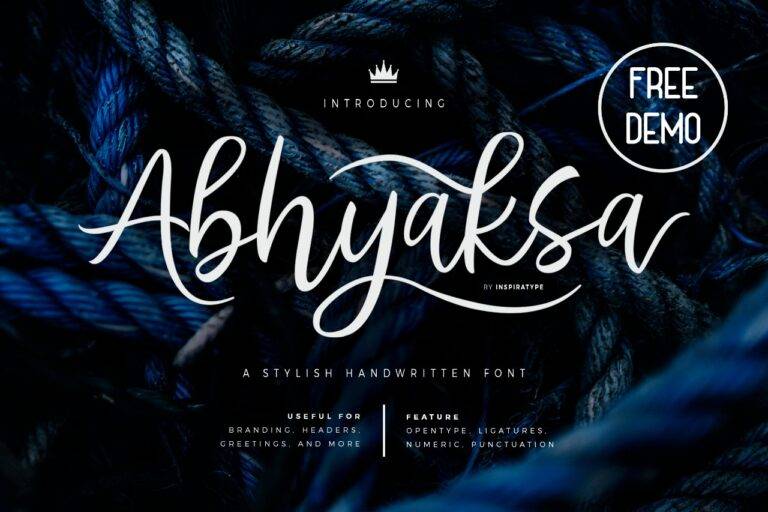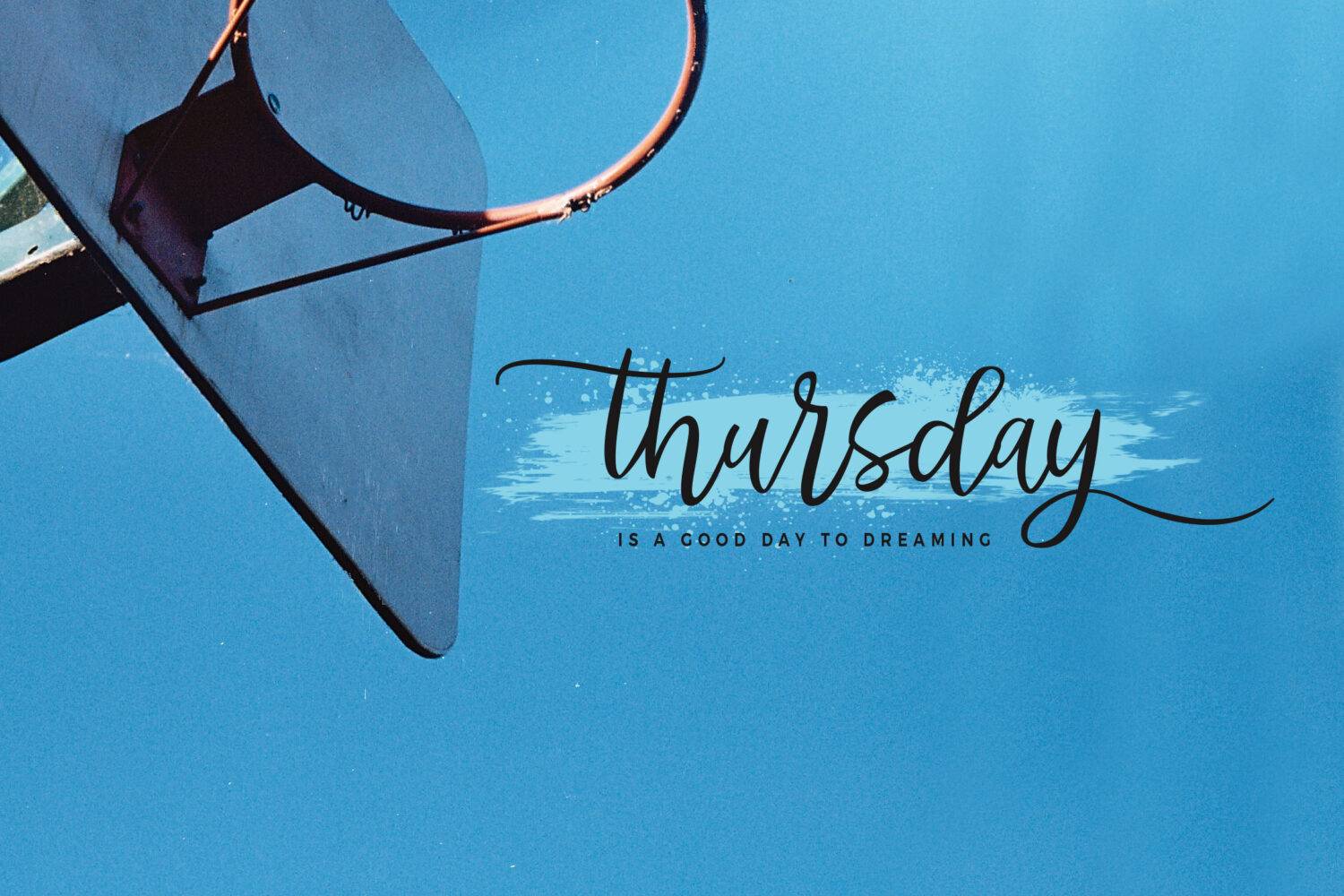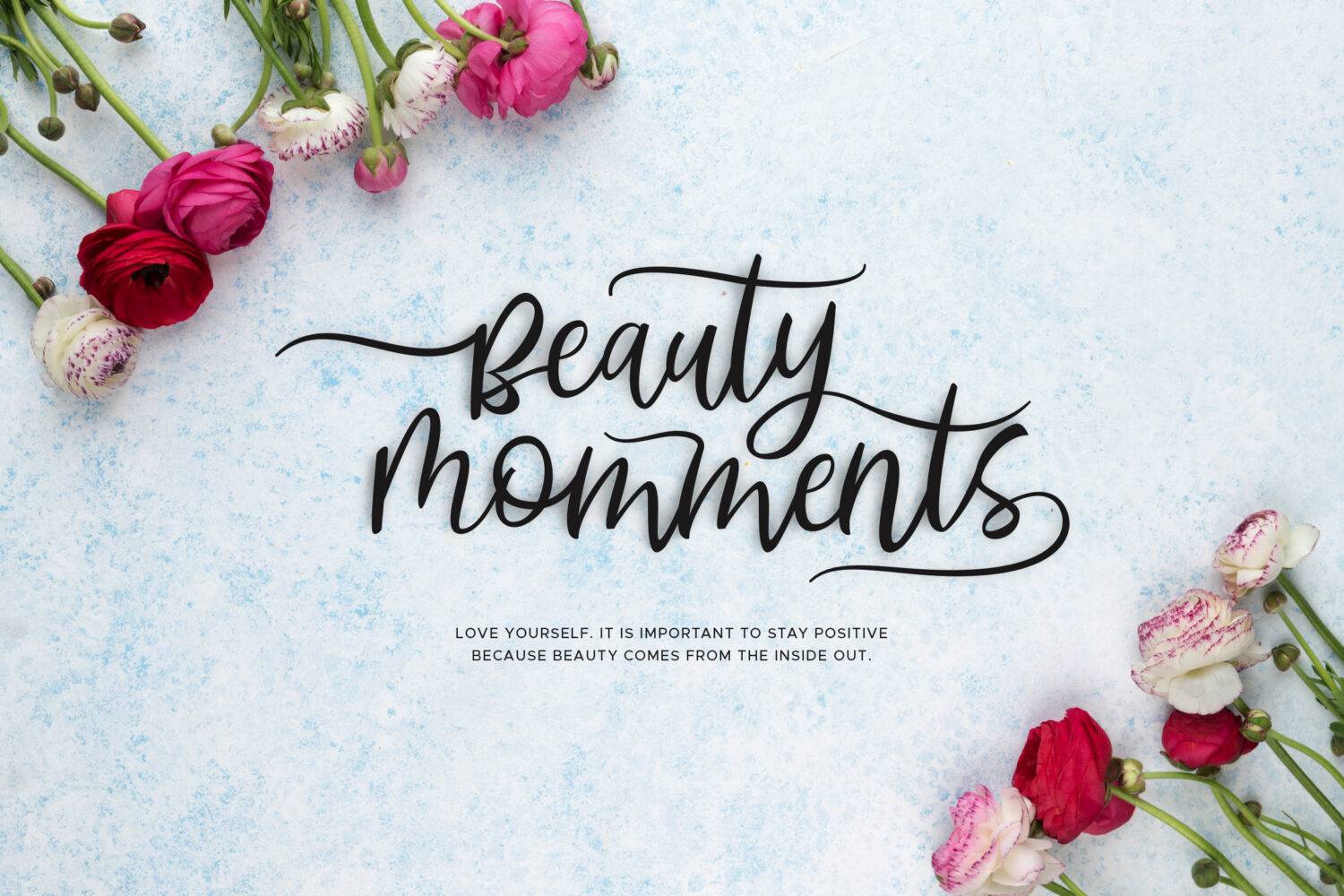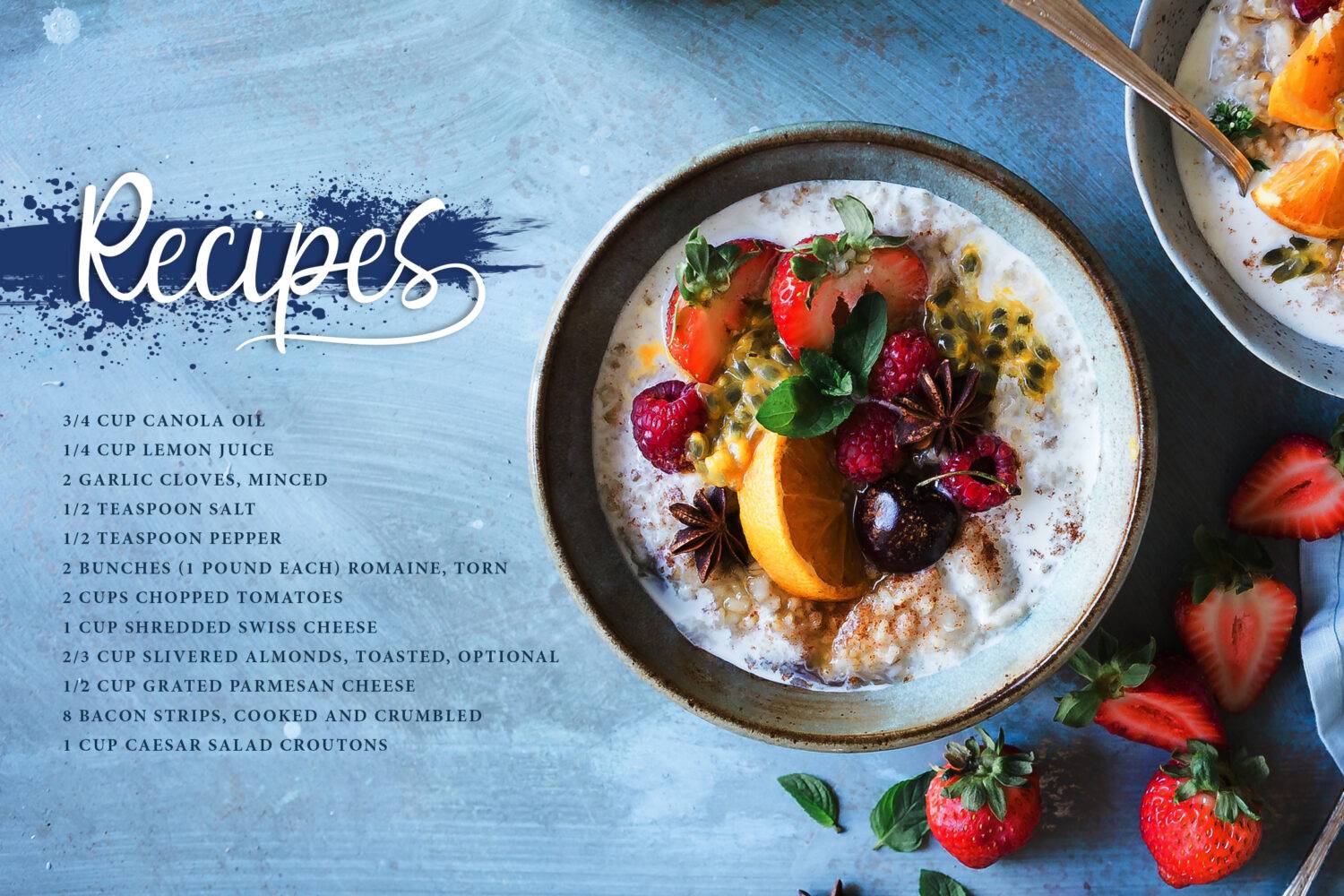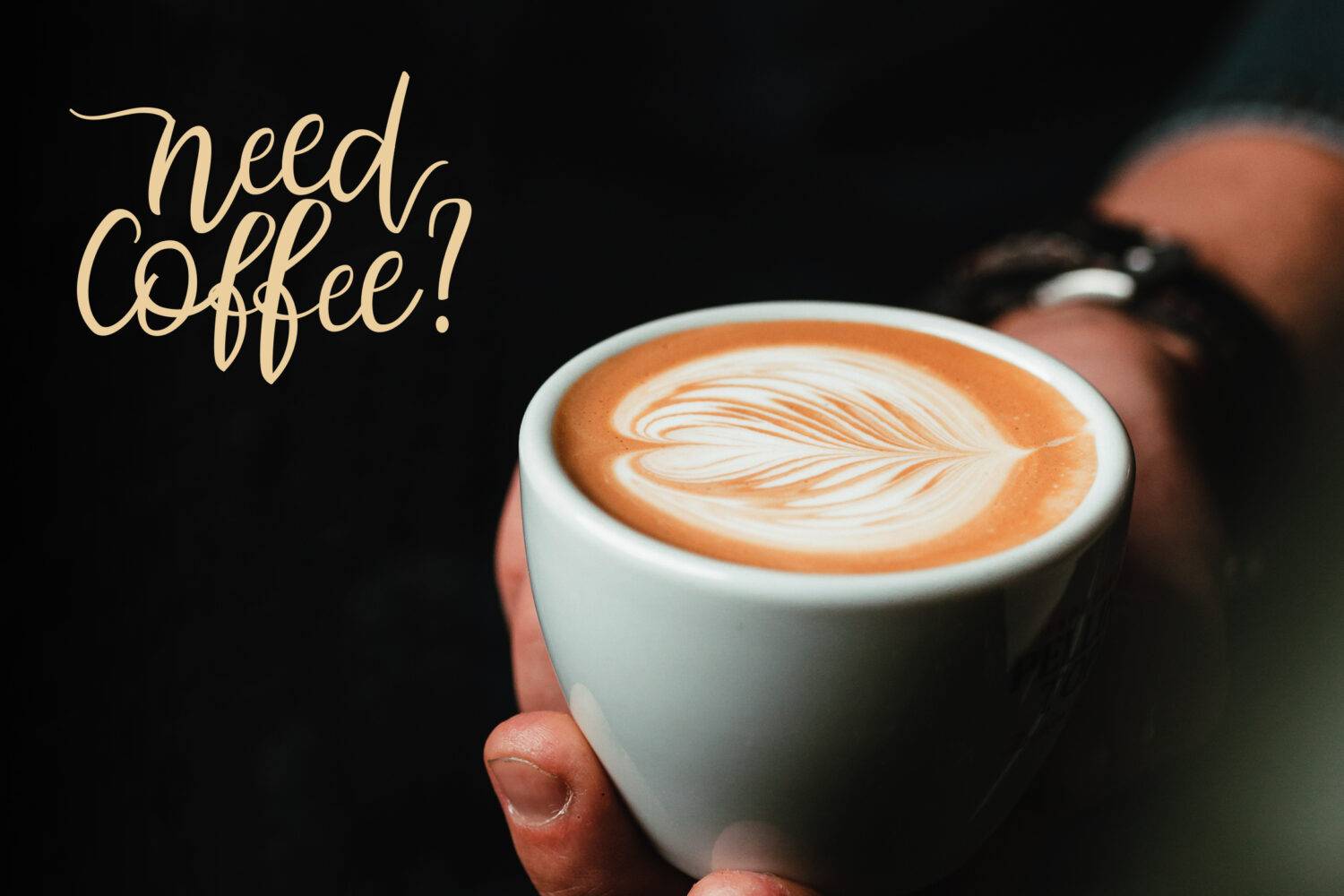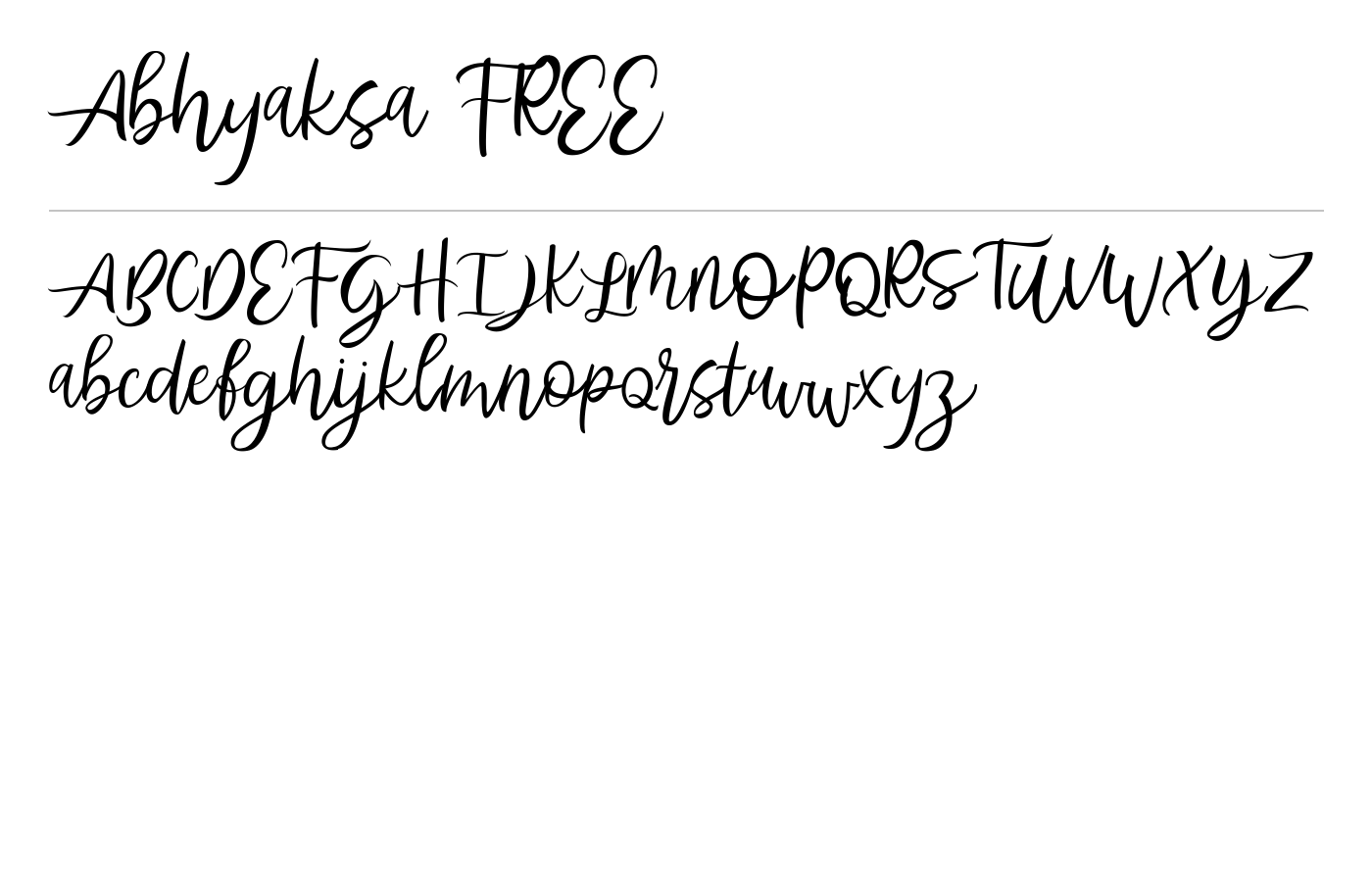
Abhyaksa is a stylish script font with a smooth, handwritten feel, featuring thin, flowing strokes and elegant curves. Its light weight and natural, casual flair make it perfect for creative projects, invitations, branding, and any design that benefits from a personal, artistic touch.
Abhyaksa Font
About Abhyaksa Font